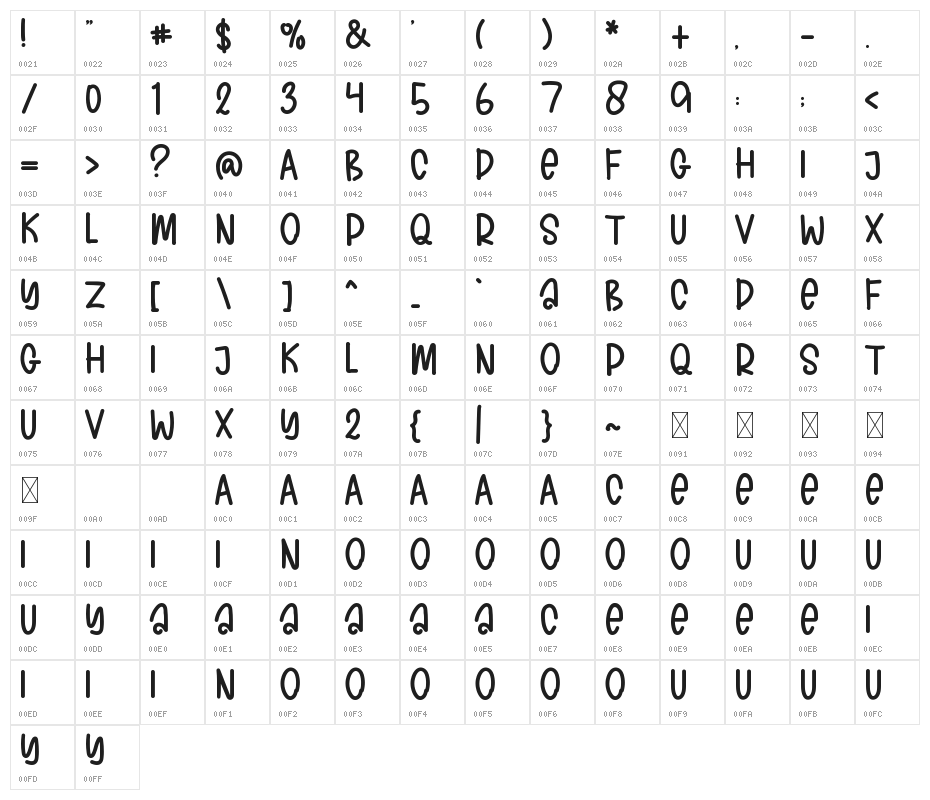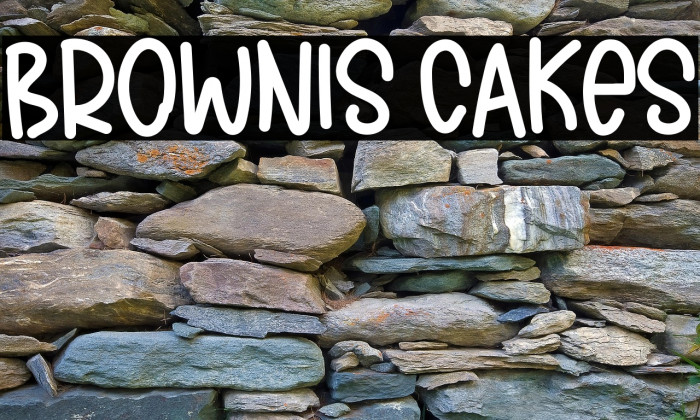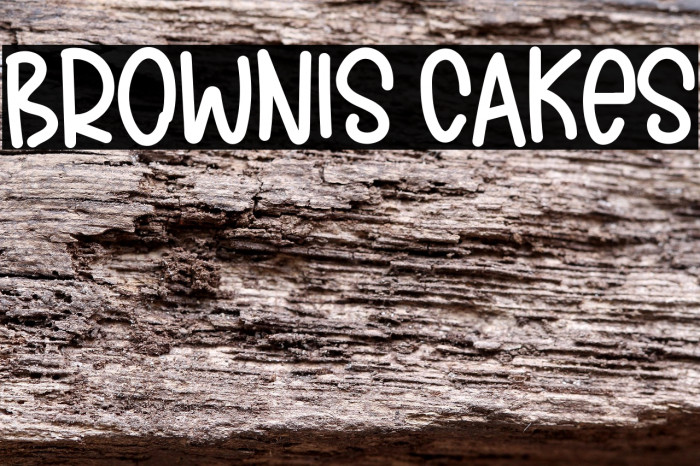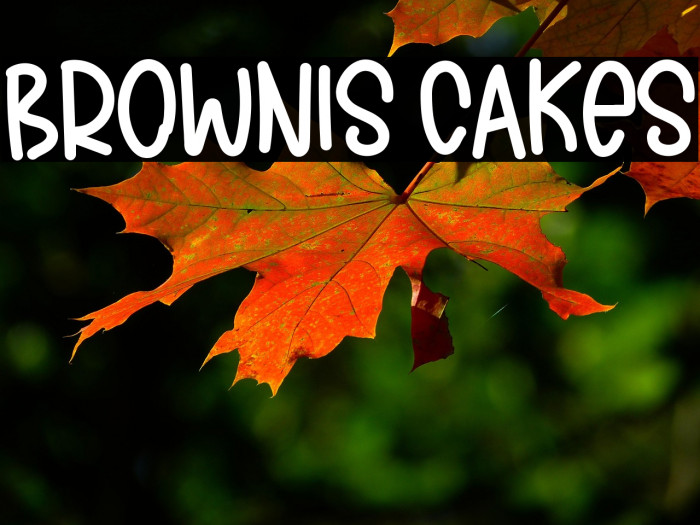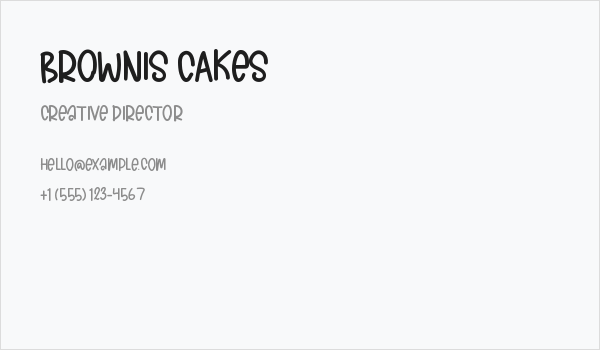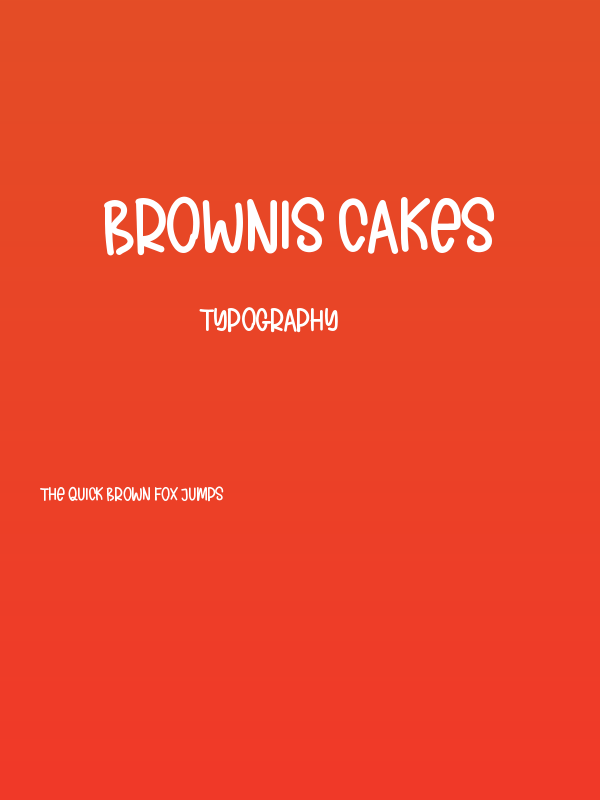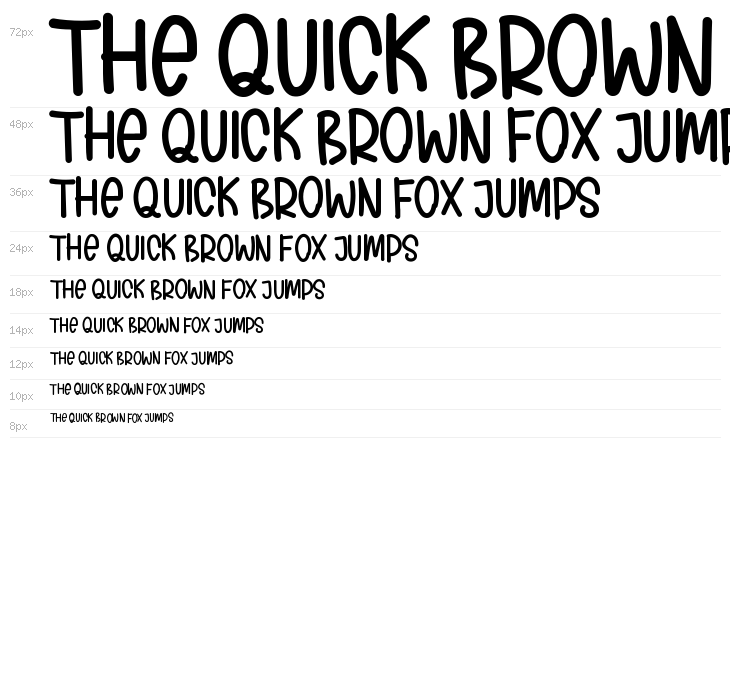
BROWNIS CAKES Font
BROWNIS CAKES Description
This playful and bold font features a handwritten style with rounded edges and a casual, friendly appearance. The characters are slightly irregular, adding to the whimsical and informal feel. The uppercase and lowercase letters maintain a consistent style, with a smooth flow that suggests a sense of movement. The numbers and special characters are designed to match the overall aesthetic, making them suitable for a variety of creative applications. The font's thick strokes and rounded forms give it a substantial presence, making it ideal for eye-catching designs.
| Proposed Projects | Great for children's books, playful branding, greeting cards, and creative posters. |